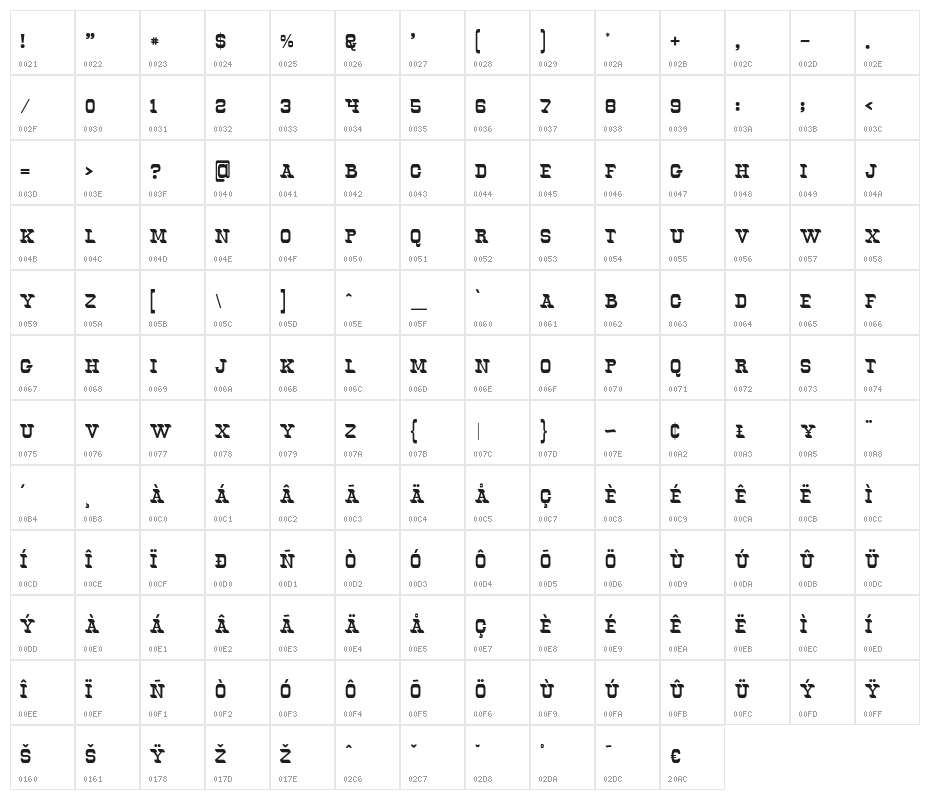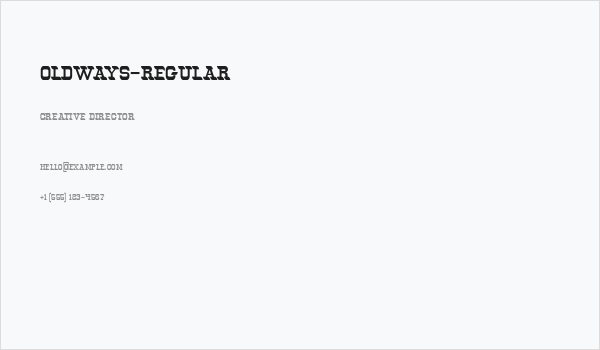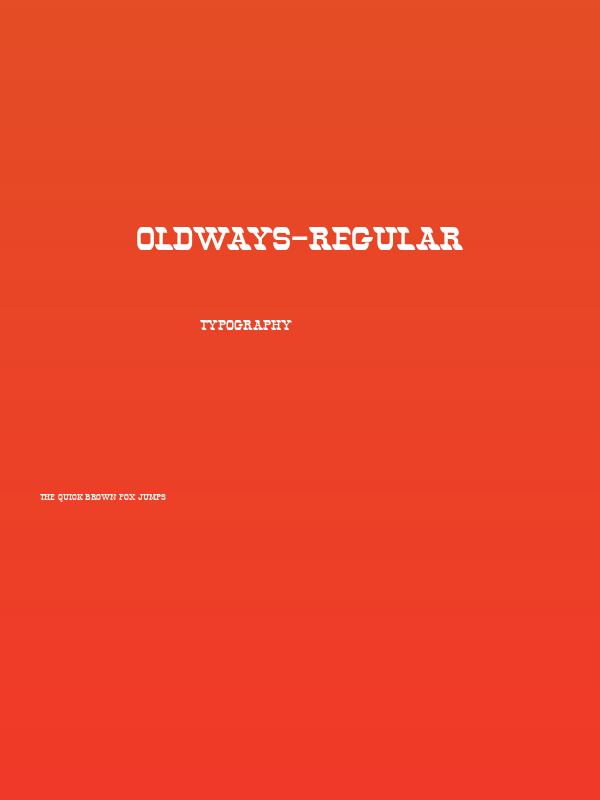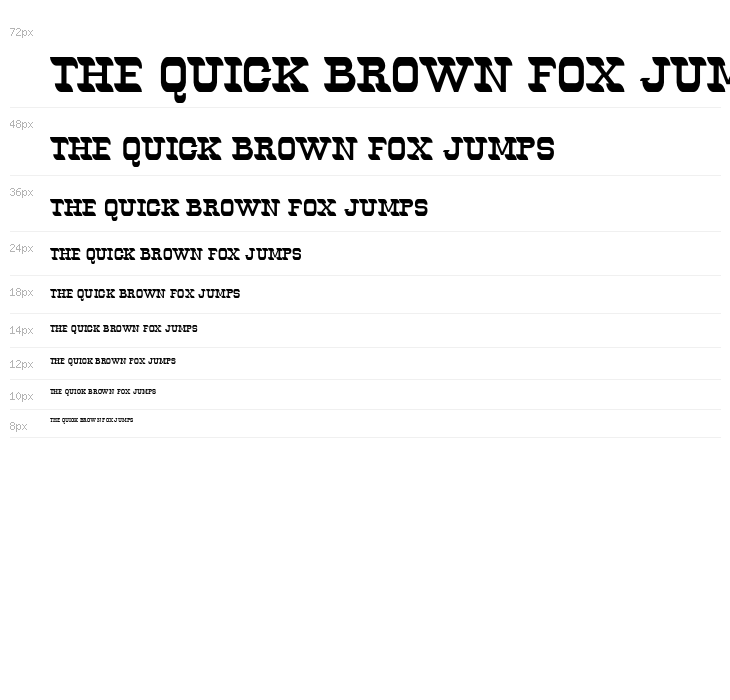
Oldways-Regular Font
Oldways-Regular Description
This font features a bold, slab serif style with strong geometric shapes and a vintage feel. The characters are robust and have a distinct presence, making them ideal for impactful designs. The serifs are thick and block-like, adding to the overall weight and stability of the typeface. The uppercase and lowercase letters maintain a consistent style, with the numerals and special characters following suit. The font's design is reminiscent of early 20th-century typography, often used in posters and signage for its readability and boldness.
| Proposed Projects | Ideal for retro-themed posters, signage, branding, and headlines that require a strong visual impact. |